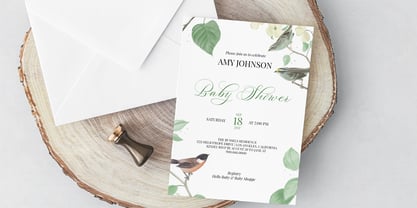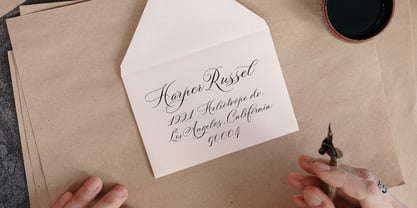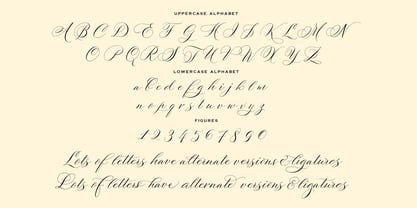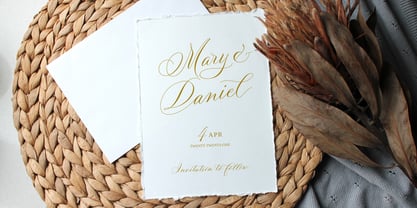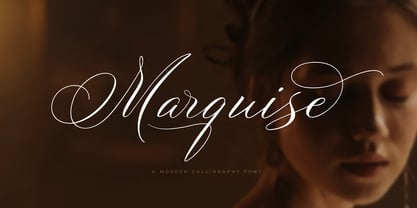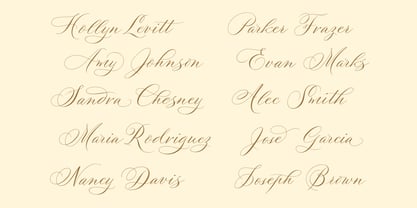
Marquise
by vatesdesign
The Marquise Font Family was designed by Aleksey Ivanov and published by vatesdesign. Marquise contains 1 styles. More about this family
Marquise is a jazzy calligraphic script for custom wedding invitations, save-the-date cards, and personal branding. Based on classic shapes, it is designed to resemble natural handwriting with slight variations in tilt, baseline, swashes, and stroke width. Marquise has extended character set with Western European languages support
Designers: Aleksey Ivanov
Foundry: vatesdesign